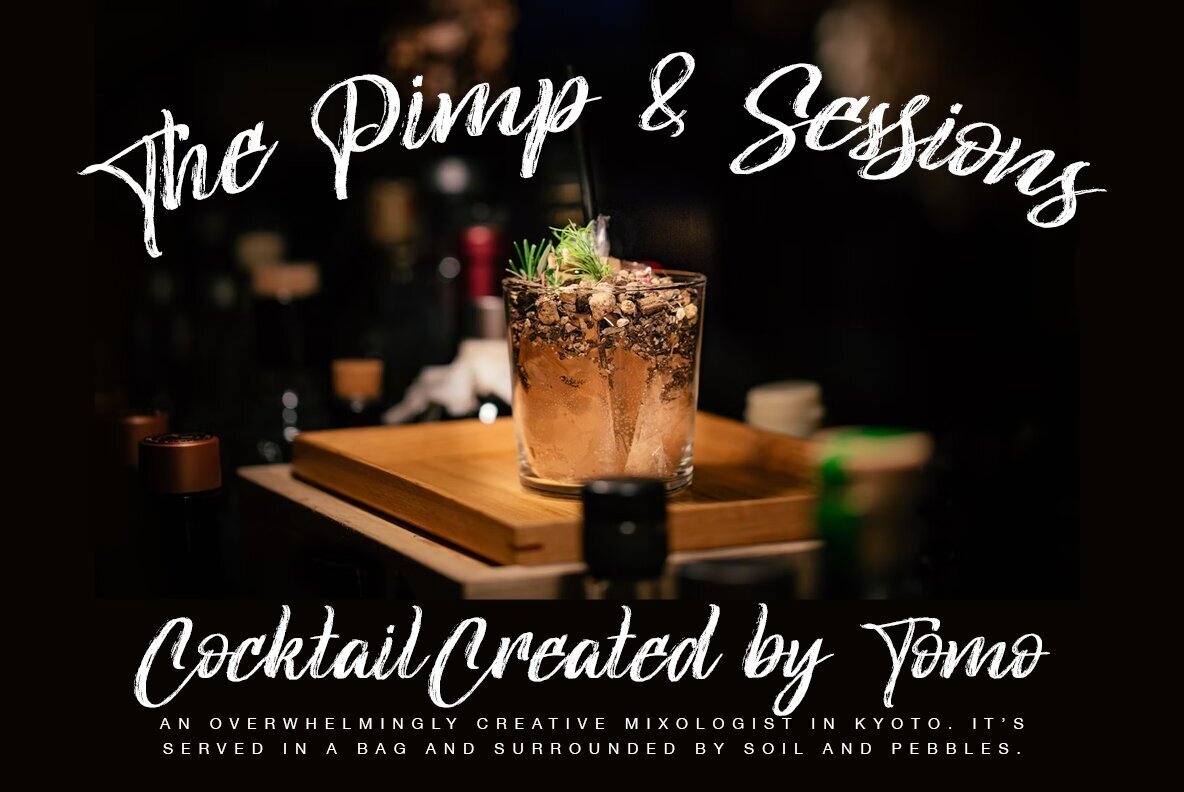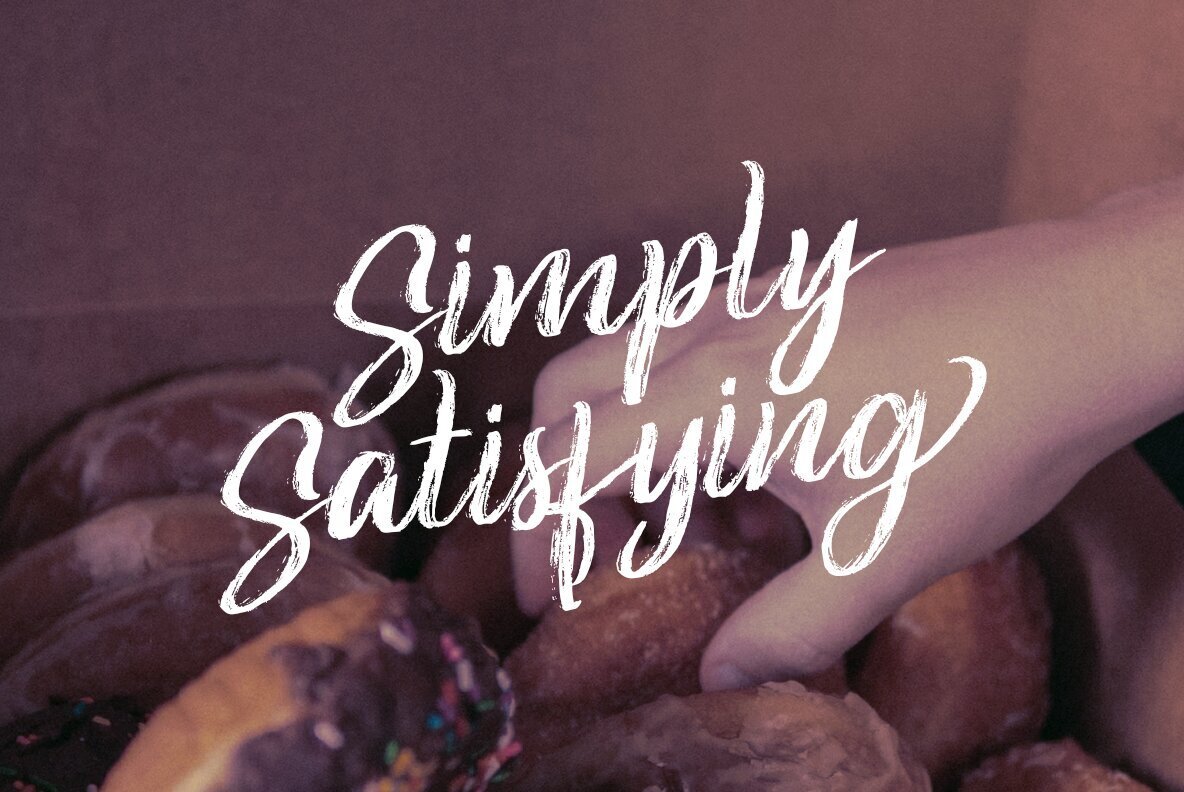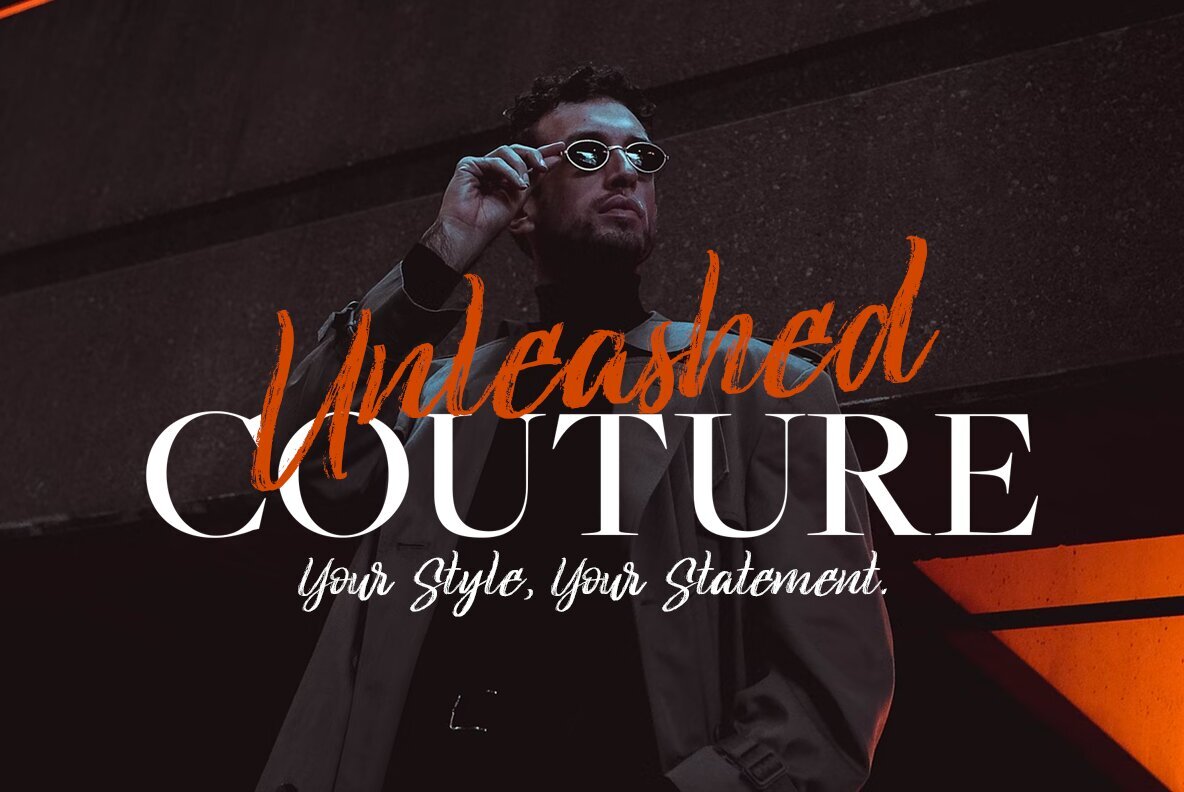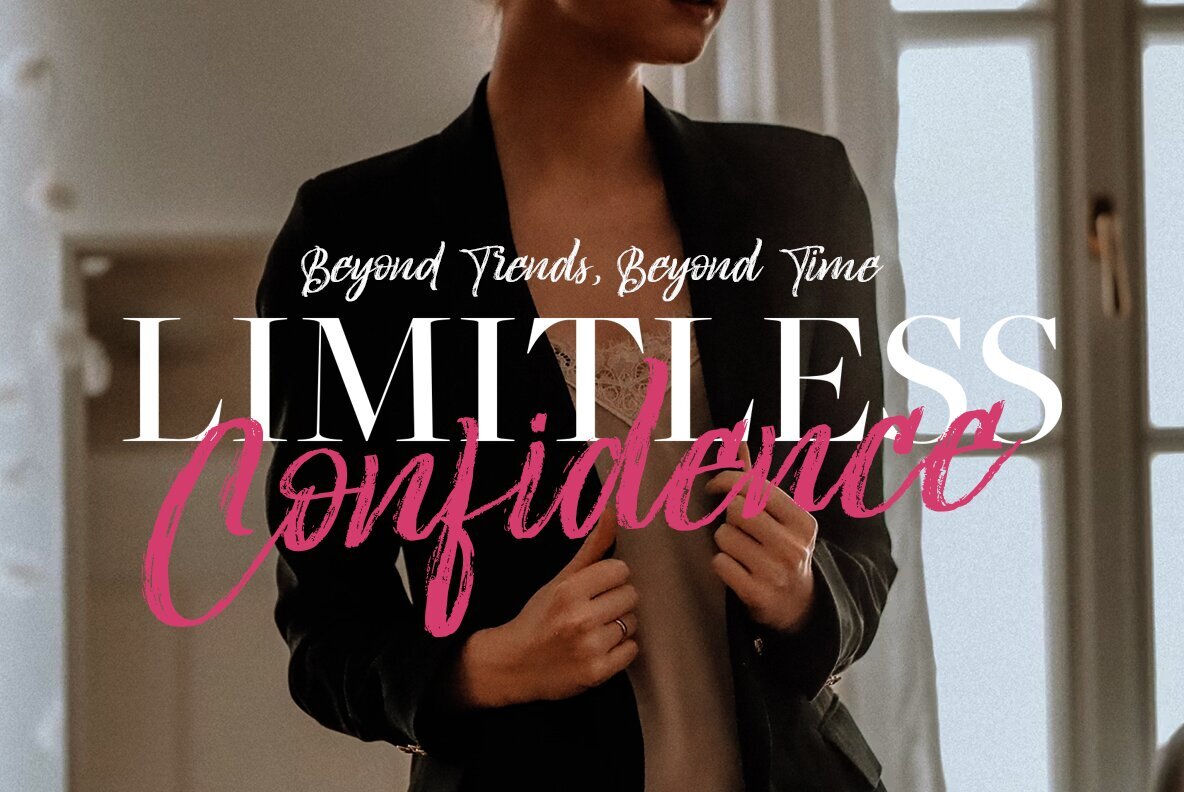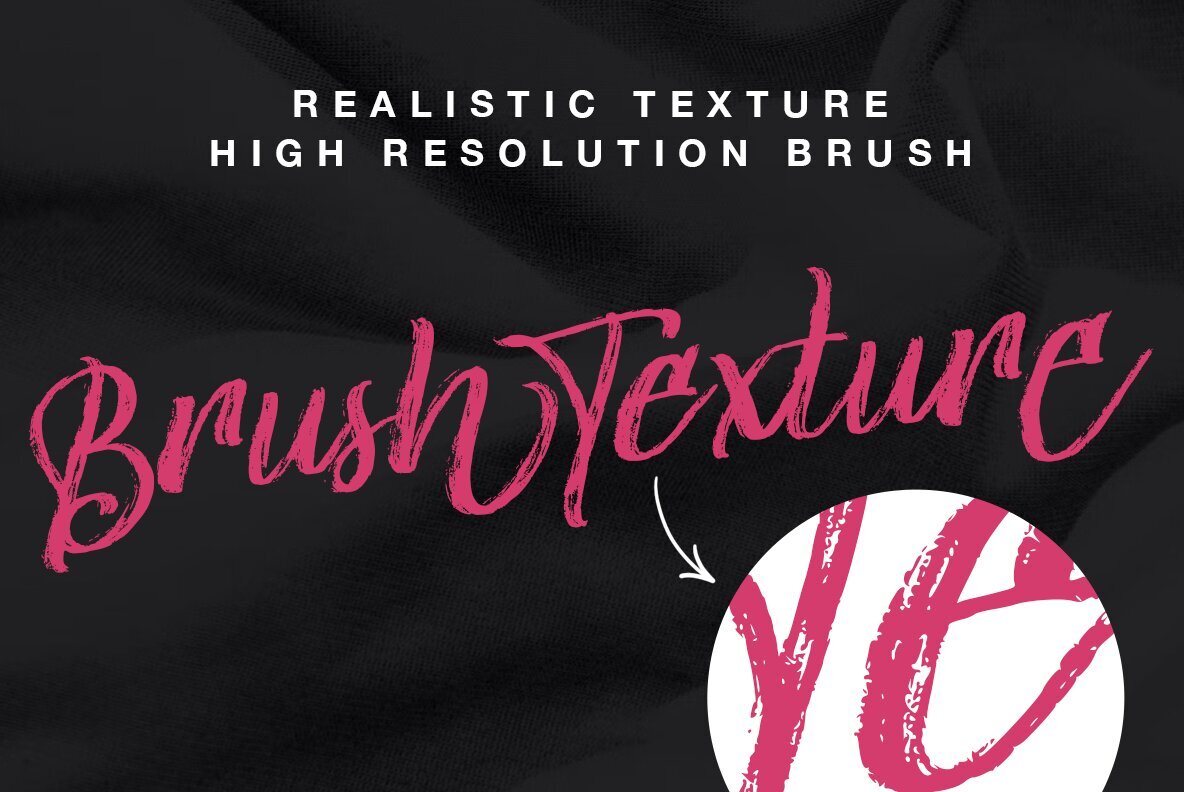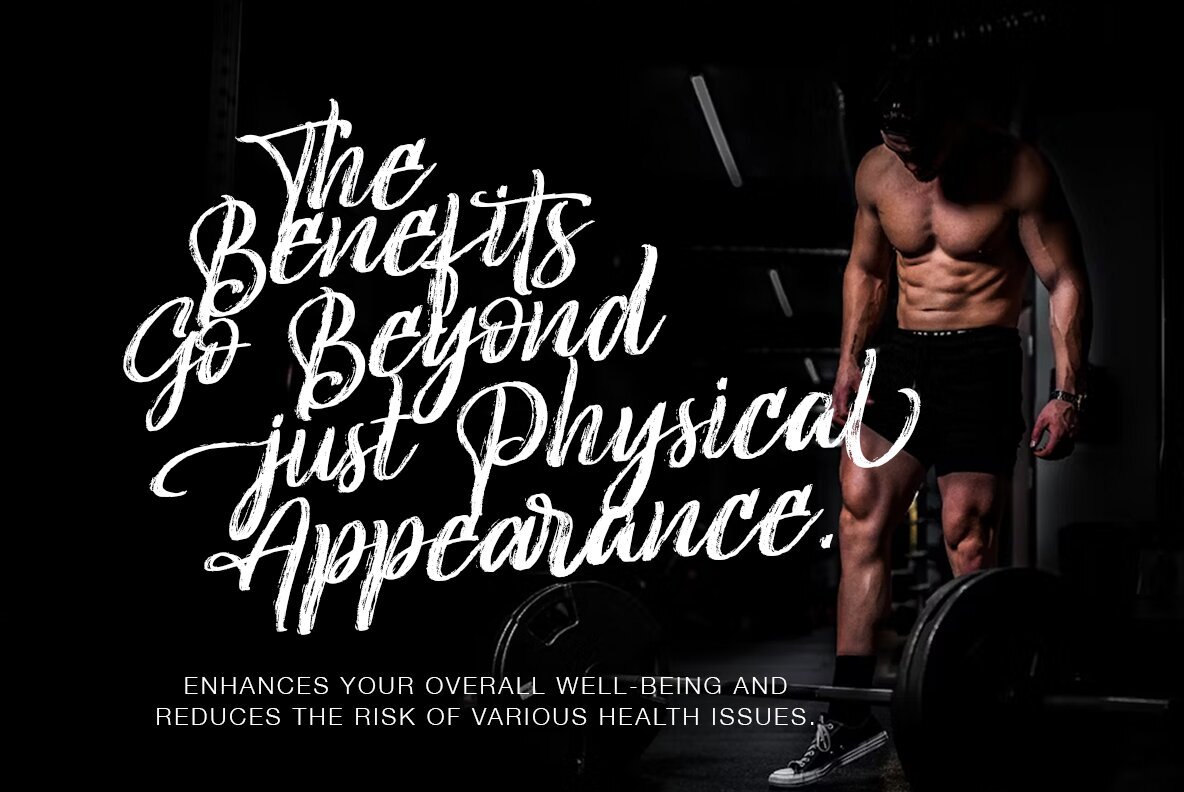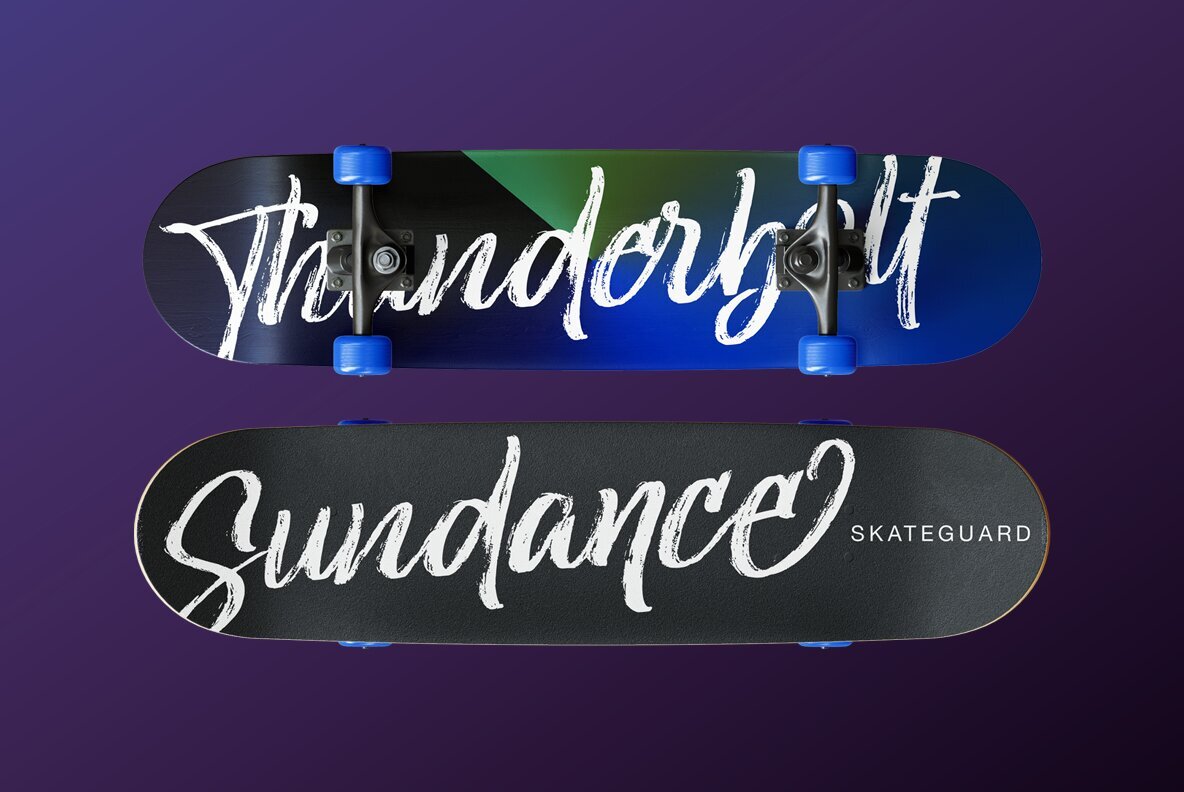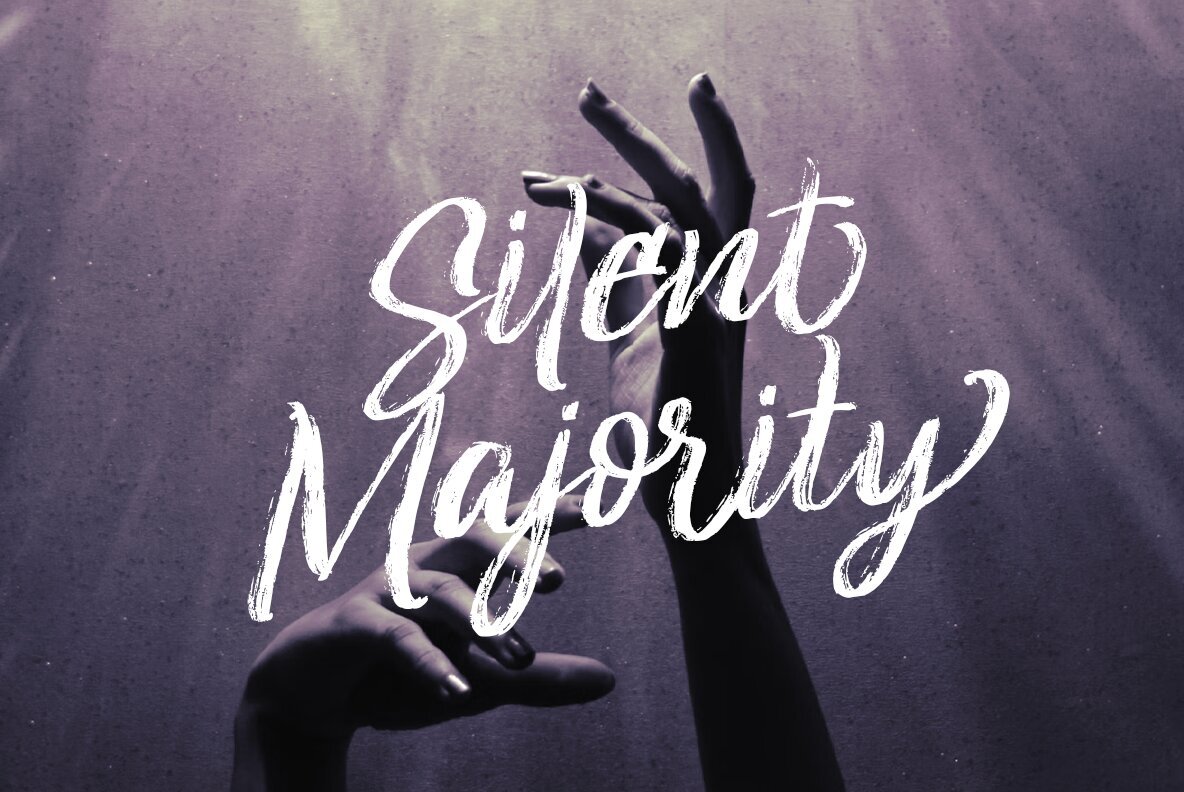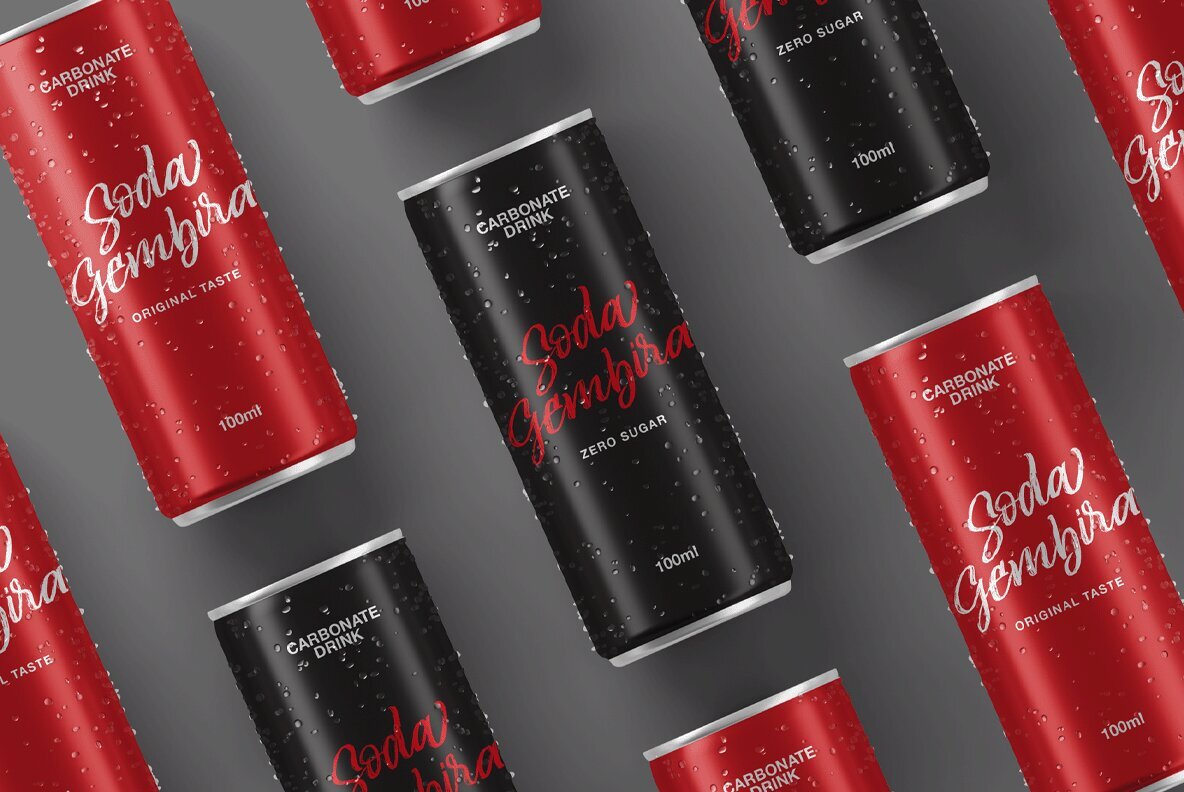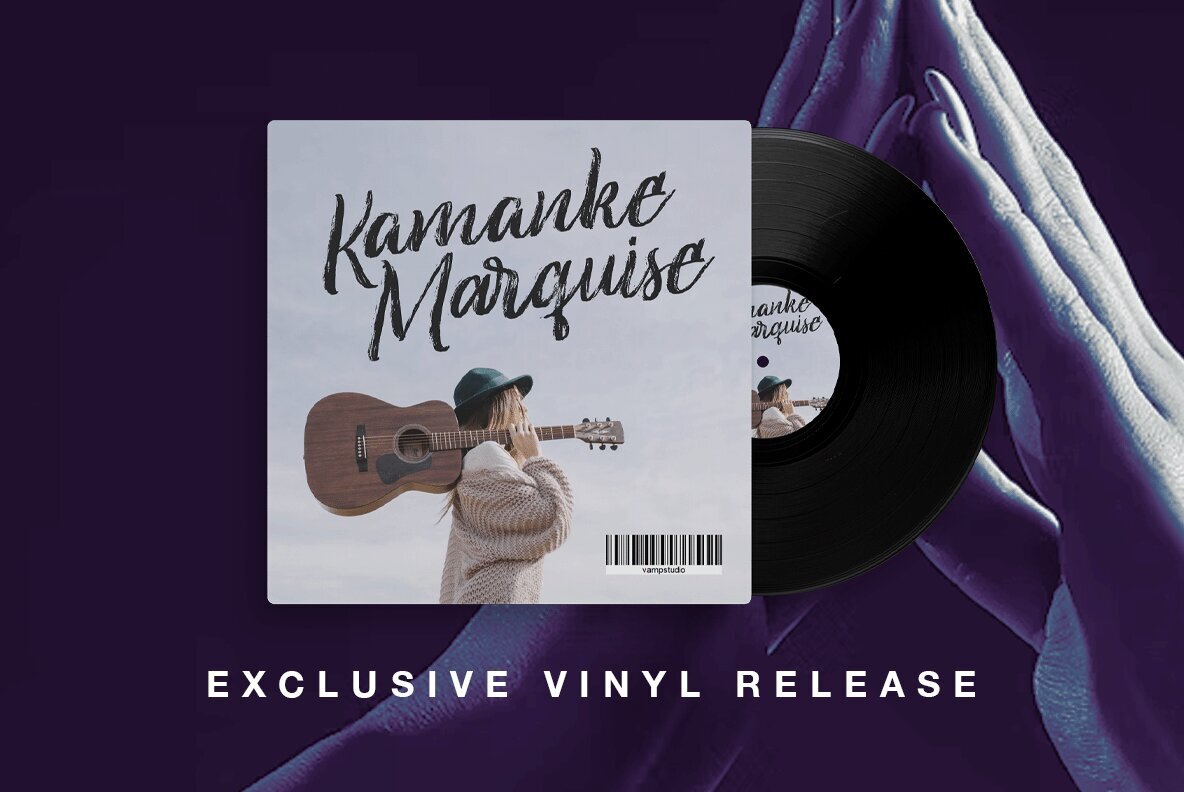
Scriptonious Font
Scriptonious Regular
Introducing "Sciptonious Script Font" – Add Elegance and Personality to Your Designs! Elevate your projects with the timeless charm of "Sciptonious," a versatile script font designed to bring sophistication and flair to your creative endeavors. Sciptonious is perfect for branding projects, logo, wedding designs, social media posts, advertisements, product packaging, product designs, label, photography, watermark, invitation, stationery and any projects that need handwriting taste.